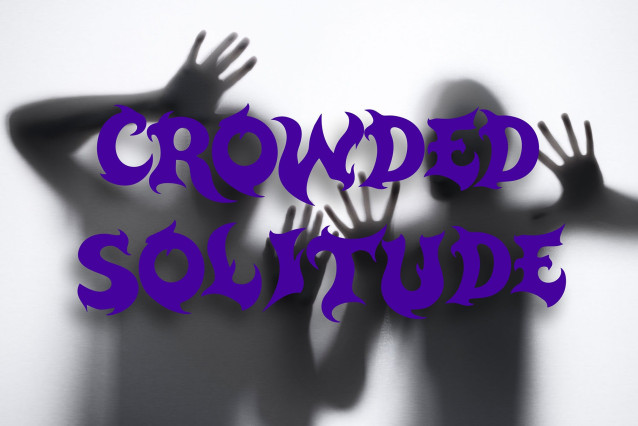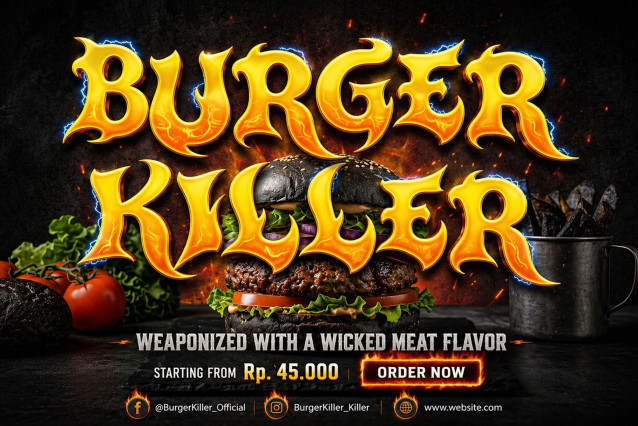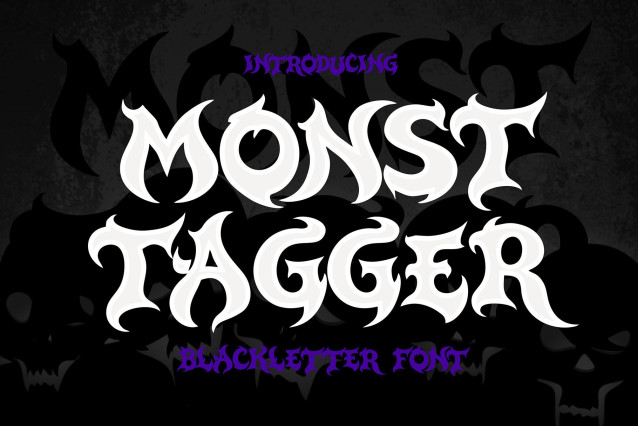
Monst Tagger Font
Monst Tagger Font is a bold, high-impact display font designed by Cikareotype Studio. Drawing inspiration from the raw energy of street graffiti and the sharp aesthetics of horror and metal subcultures, this font is crafted to make a statement that no one can ignore.